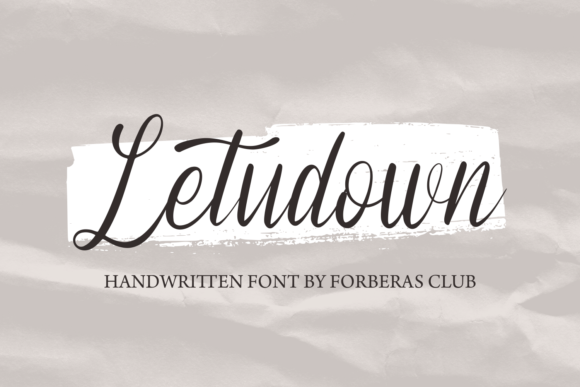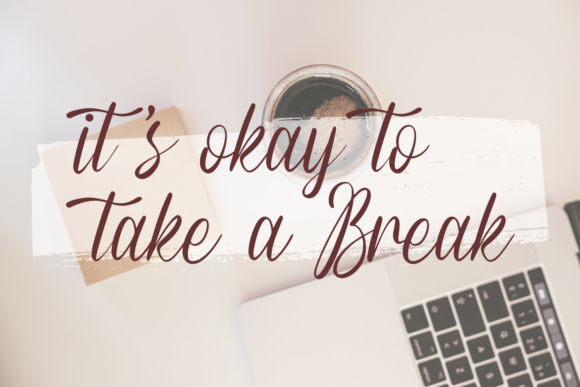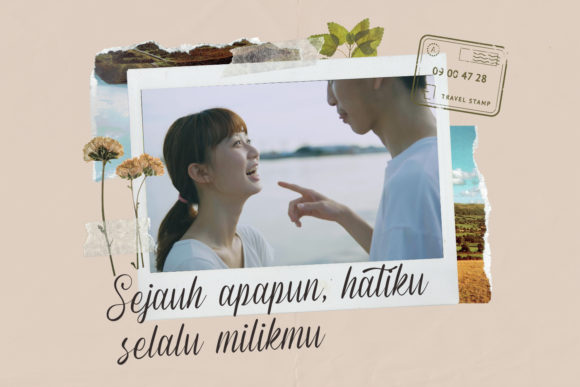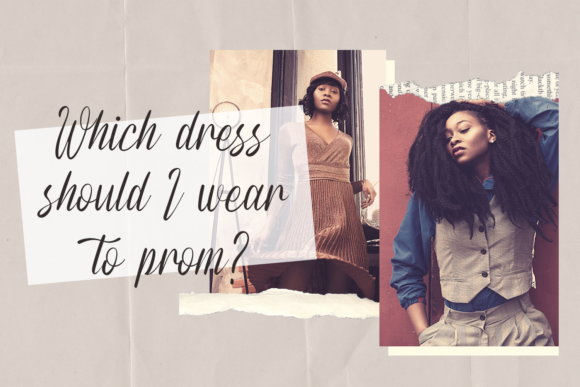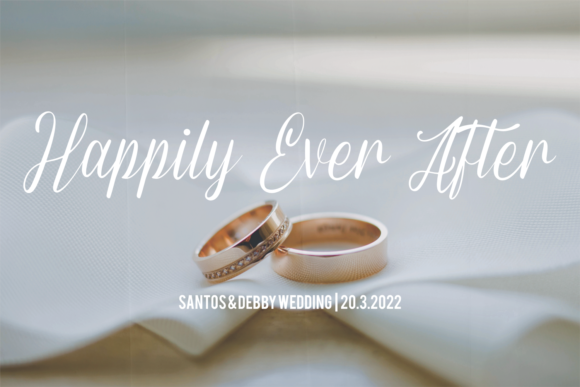
About Letudown Font
Introducing Letudown, a font that exudes elegance and sophistication, designed to leave a lasting impression and elevate your branding to new heights.
Letudown is more than just a font; it’s a work of art that adds a touch of luxury to every project. Its intricate and handcrafted design captures attention and creates a sense of prestige, making it the perfect choice for making your branding truly shine.
Let your projects come to life with the graceful charm of Letudown. Whether it’s headings, logos, or advertisements, this font brings an air of refinement that commands attention and leaves a memorable mark.
Infuse your printed materials with the timeless beauty of Letudown. From quotes to packaging, this font adds a touch of elegance that enhances the visual appeal of your designs and makes them stand out.
Embrace the versatility of Letudown as it seamlessly transitions from print to digital. Use it on your website or social media branding to create a cohesive and sophisticated online presence that resonates with your audience.
Letudown’s fancy and elegant nature makes it a font that truly impresses. Its meticulously crafted characters are a testament to its attention to detail, ensuring that every design you create with it is a work of art in itself.
Elevate your branding and design projects with the timeless beauty of Letudown. Its intricate details, elegance, and versatility make it a font that not only impresses but also leaves a lasting impact on your audience. Let Letudown be the key to making your projects dance with style and sophistication.